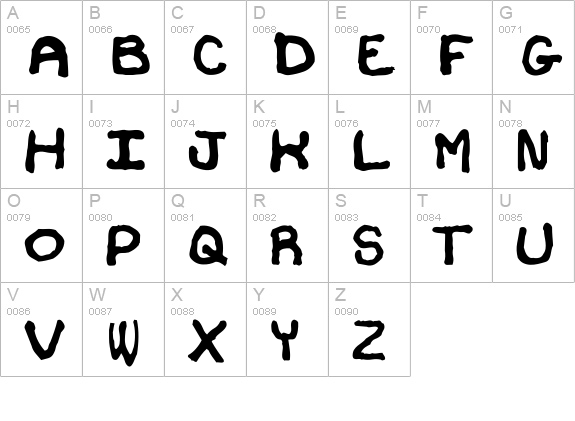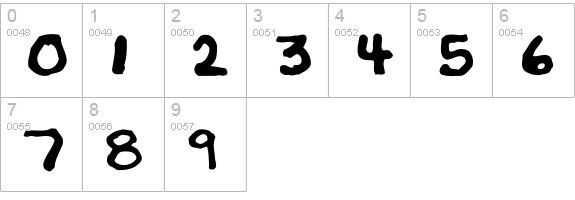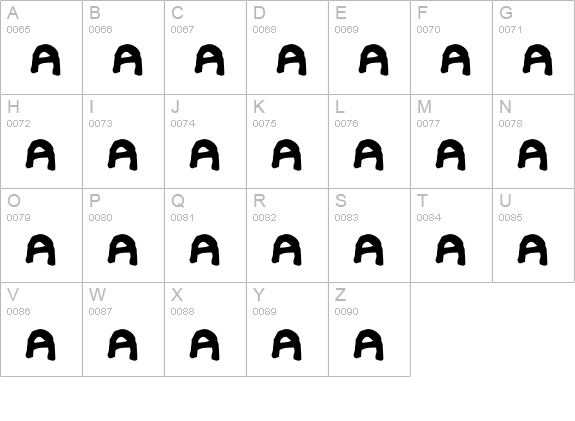
DOOFUS Font Details
Introducing DOOFUS font, a playful and whimsical typeface that will bring a smile to your face. With its rounded edges, quirky letterforms, and unique personality, DOOFUS is perfect for adding a touch of fun and creativity to your designs. Whether you're designing a children's book, a party invitation, or a lighthearted logo, DOOFUS will effortlessly capture the joyful essence you're looking for. Its charmingly imperfect curves and bouncy characters create a sense of warmth and approachability that appeals to both young and old alike. DOOFUS is a versatile font that can adapt to various design projects. From headlines and titles to body text and captions, this font offers a wide range of weights and styles to suit your needs. It is incredibly legible even at smaller sizes, ensuring that your message remains clear and engaging. What makes DOOFUS even more delightful is the fact that it is available for free! That's right, this font can be freely downloaded at FontsMarket.com. Whether you're a professional designer, a hobbyist, or a student, DOOFUS provides an opportunity to embrace its playful charm without any cost. So go ahead and explore the whimsical world of DOOFUS font, and let your creativity run wild. Download DOOFUS font today and add a touch of whimsy to your designs. Whether you're creating something for personal or commercial use, this font is sure to bring a smile to your face and captivate your audience. Don't miss out on the chance to freely experience the joy and versatility of DOOFUS font – available exclusively at FontsMarket.com.